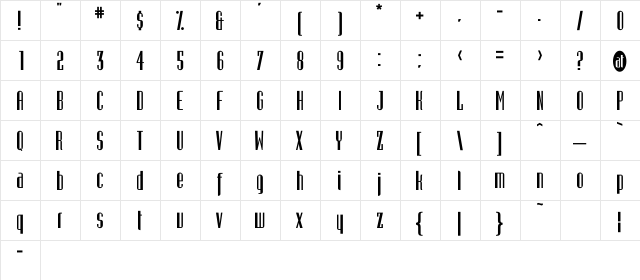
Gustavus Regular
Design Context for Gustavus Typeface
Gustavus is a composed and adaptable typeface that performs quietly and consistently across a wide range of design contexts.